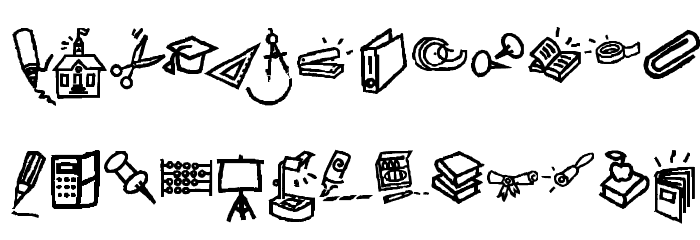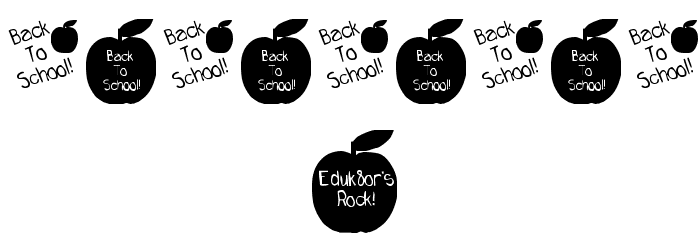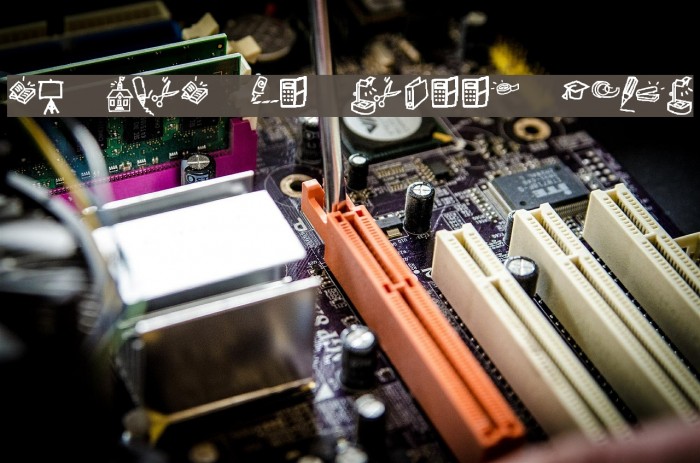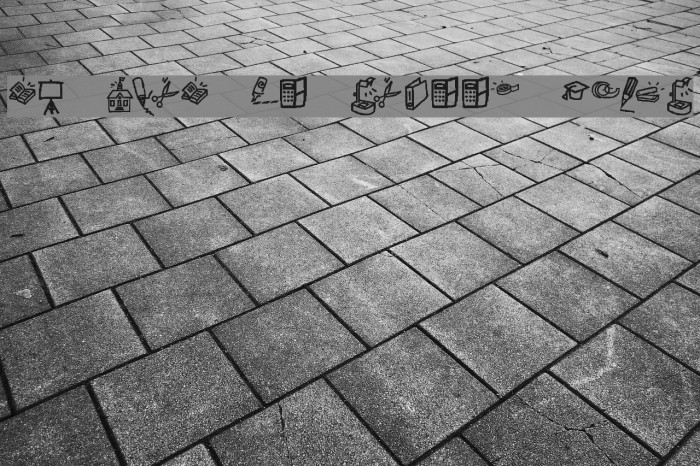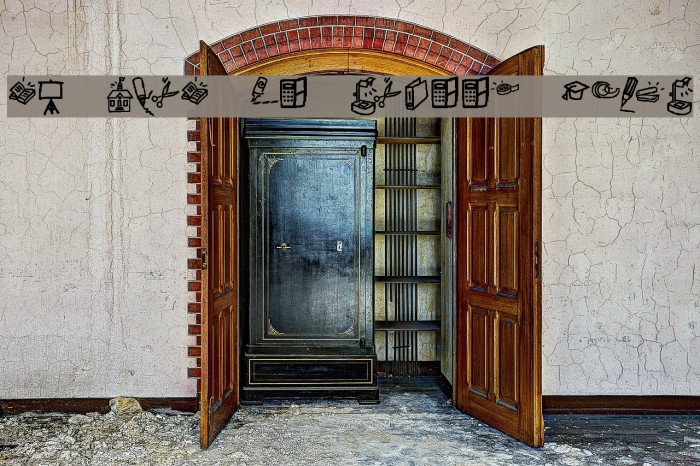
KR Back To School Dings Font
This is a playful and thematic dingbat font featuring a variety of school-related icons. Each character is represented by a unique illustration, such as a school building, scissors, graduation cap, compass, books, and more. The style is hand-drawn with a whimsical touch, making it ideal for educational materials or projects aimed at children. The icons are bold and clear, ensuring they stand out in any design. The font captures the essence of a fun and engaging school environment, perfect for back-to-school themes.
A playful dingbat font with school-themed icons, perfect for educational projects.
- Proposed Projects: Ideal for educational posters, school event flyers, children's books, and classroom decorations.
- Overall Style: Playful, Educational
- Use Case: Decorative elements, Educational materials